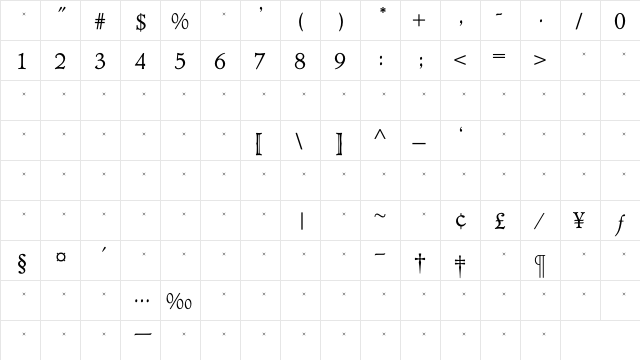
TCAdministerBookTab Regular
Design Context for TCAdministerBookTab Typeface
TCAdministerBookTab takes a measured approach to typography — its balanced proportions and neutral character make it a reliable workhorse for both digital and print work.
Pro Tip: Use TCAdministerBookTab in both headline and body roles to test its range before committing to a single application.